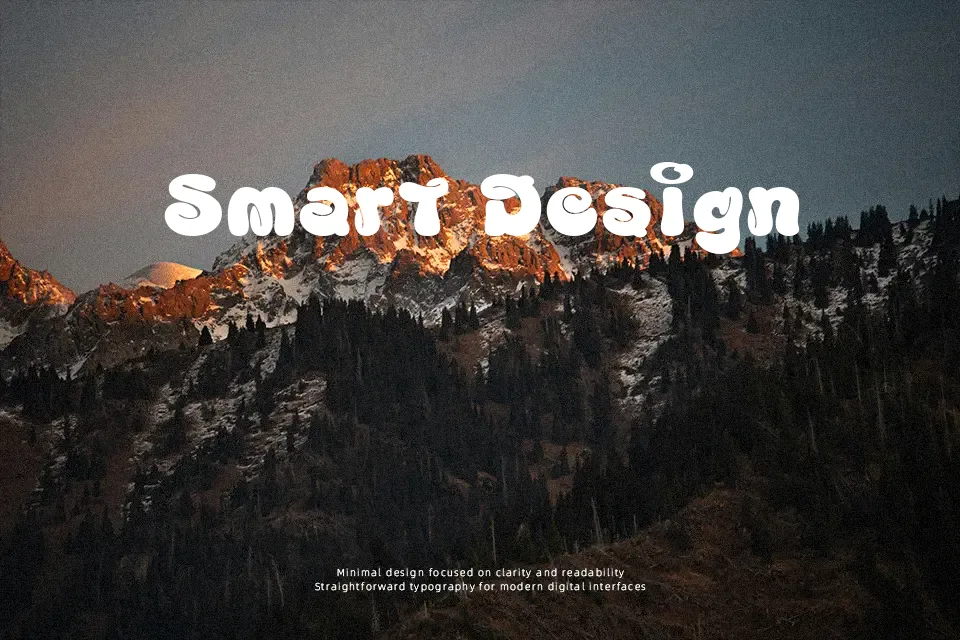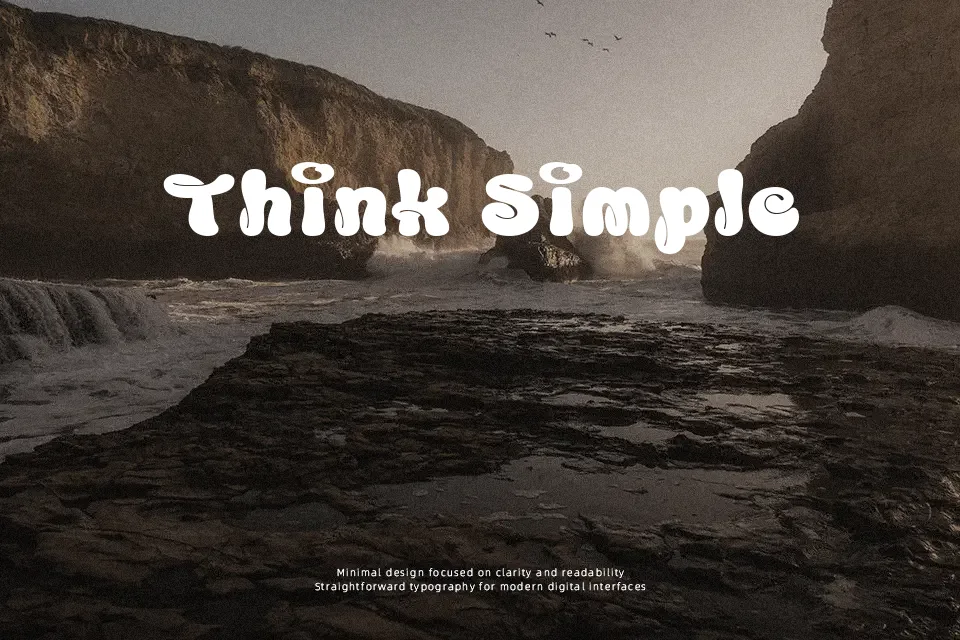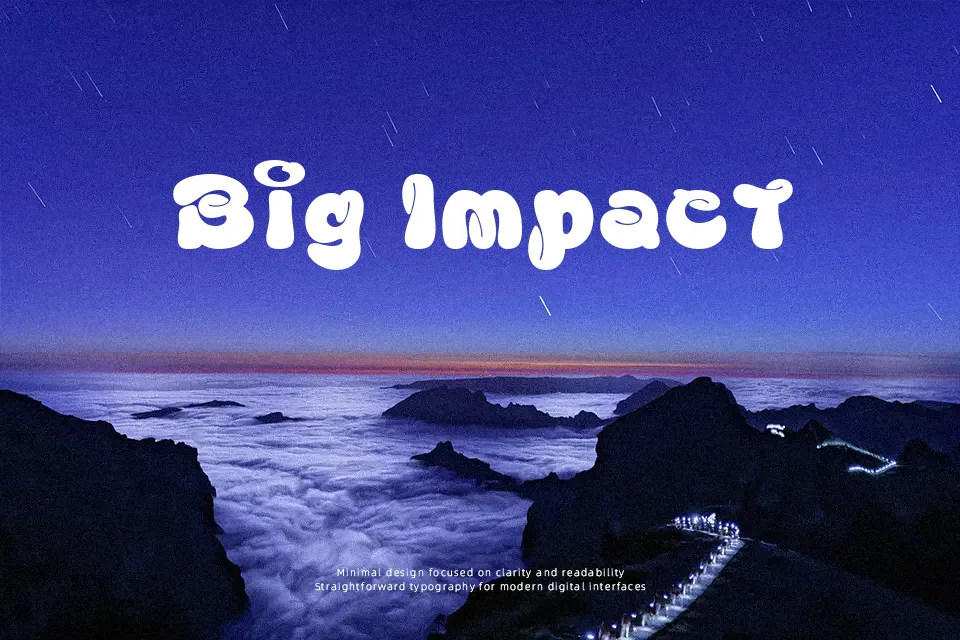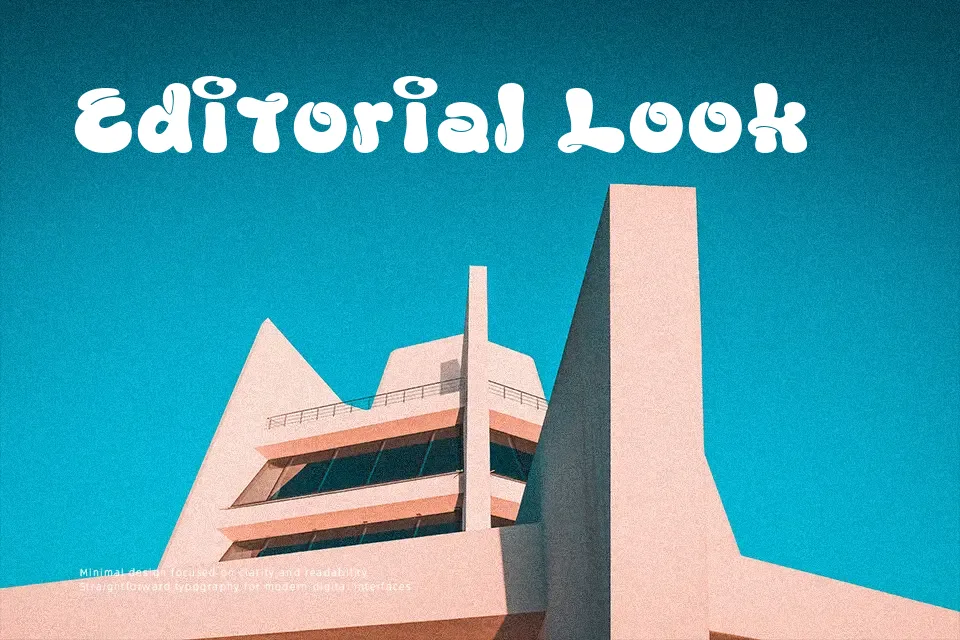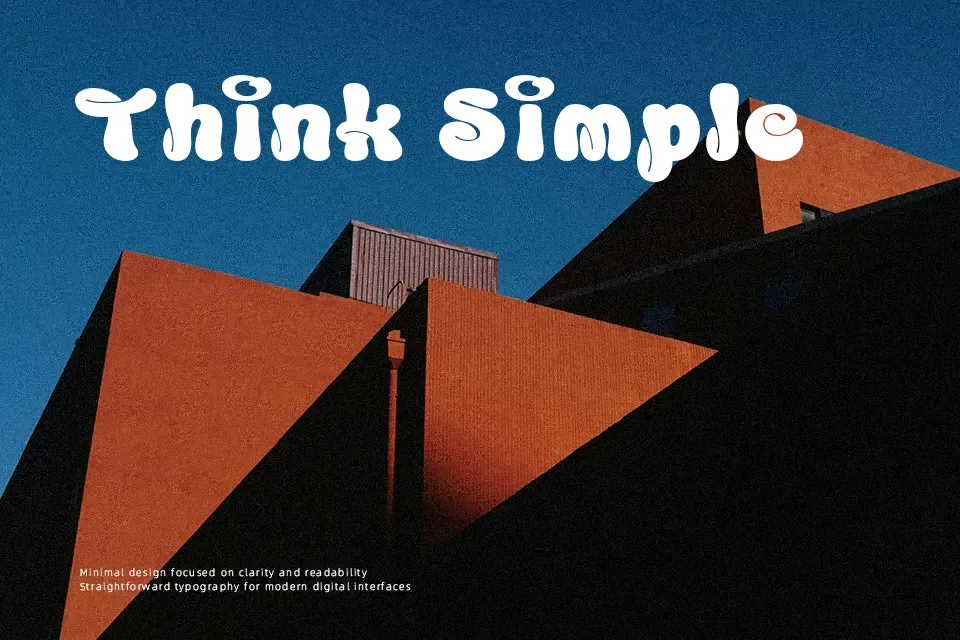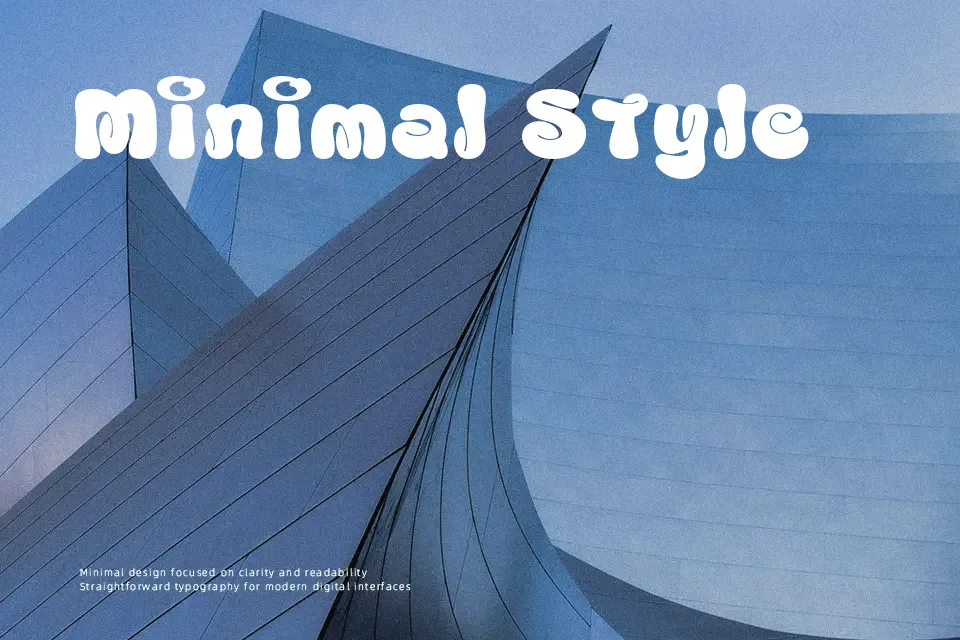
Cadho Toys Font
Designed by Alit Design
Cadho Toys Font leans into thick, rounded strokes that feel like soft balloons, with generous counters and a gently compressed rhythm that keeps words chunky but still readable at medium sizes. The letters have a retro bubble aesthetic, with ligature alternates that let you build more organic, bouncy word shapes instead of rigid repetition. It works especially well on toy logos, kids’ event posters, YouTube thumbnails, and game interfaces where you want warmth and volume, not subtlety. However, its heavy, decorative forms can overwhelm dense text, so it is a poor fit for long paragraphs, minimalist layouts, or serious corporate communication.
kids toy logos and packaging
playful game or app titles
children’s event posters and banners
cheerful social media graphics
long body copy or small text
formal corporate or editorial layouts
minimalist or highly technical interfaces
content that requires a serious tone
Perfect for gaming, kids, and logo, with a bold and cartoon style.